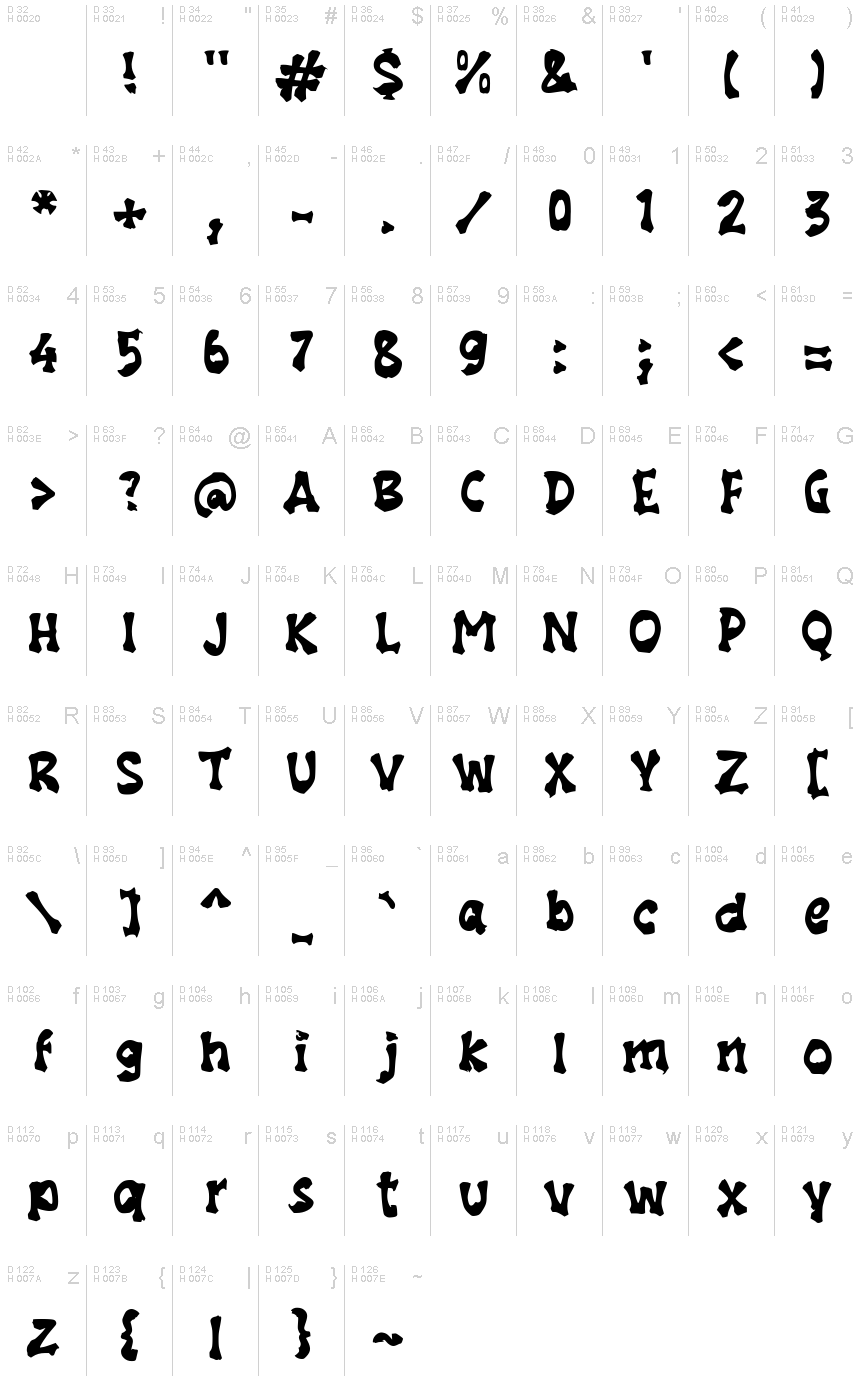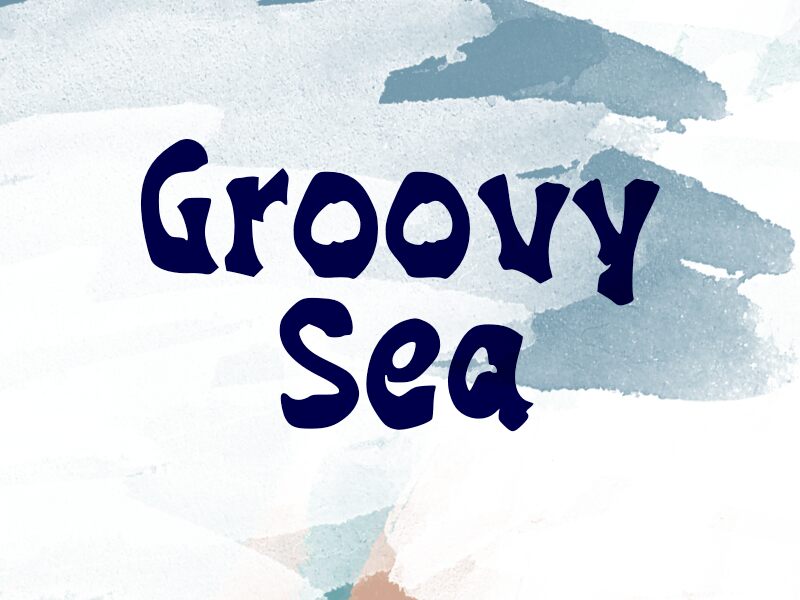
Groovy Sea
Groovy Sea is a captivating display font crafted by wep. This bold typeface exudes a playful and retro-inspired charm, with its distinctive rounded edges and organic, hand-drawn aesthetic. The letterforms possess a dynamic, free-flowing quality, evoking a sense of movement and fluidity that captures the essence of its "Groovy Sea" namesake. This font's unique character lends itself to a variety of creative applications, from eye-catching headline text to impactful branding and packaging design.
Groovy Sea's versatility shines through its ability to adapt to diverse design contexts. Its bold, attention-grabbing presence makes it an ideal choice for headlines, logos, and other display-oriented projects that require a strong visual impact. The font's retro-inspired flair also lends itself well to vintage-inspired designs, vintage-style branding, and nostalgic-themed projects, helping to create a captivating and memorable visual experience.